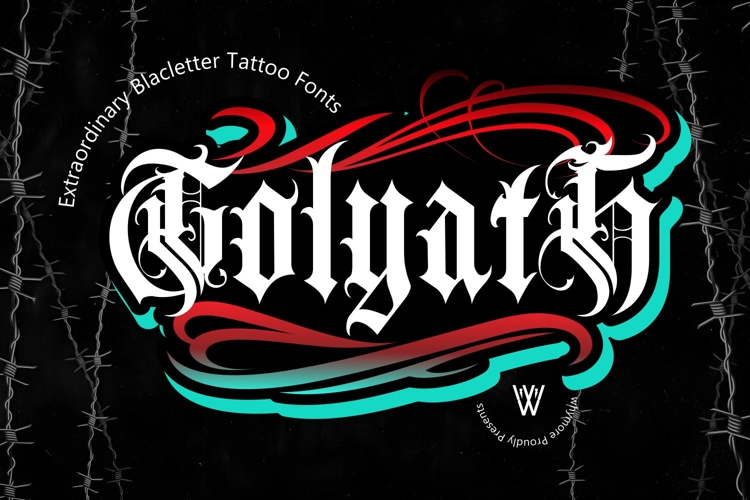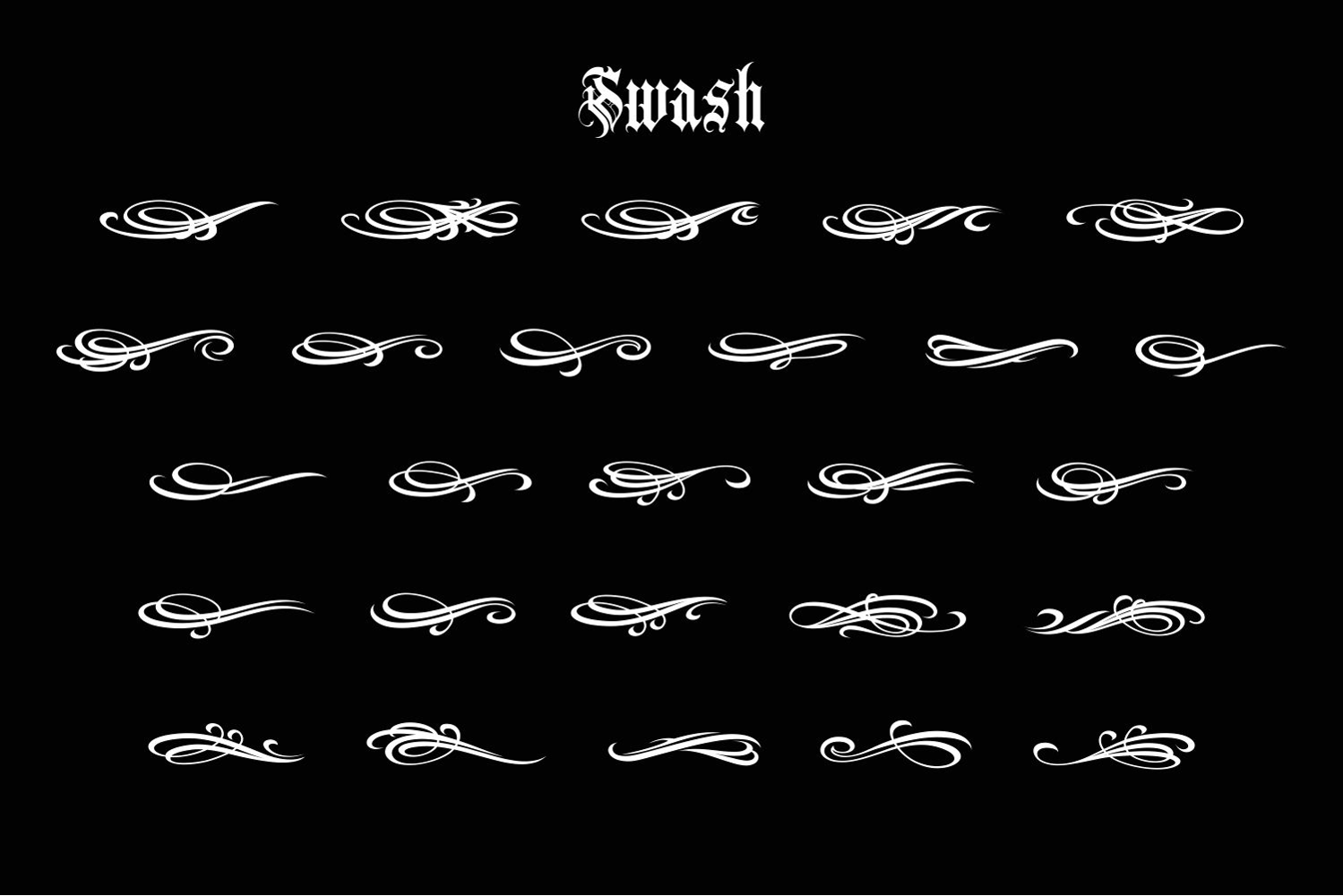
Golyath is a bold ornamental blackletter tattoo font inspired by classic tattoo lettering, gothic typography, biker culture, and vintage sign painting. Its dramatic strokes, decorative swashes, and sharp blackletter forms make it perfect for tattoo designs, logos, apparel, merchandise, posters, and bold branding.
Golyath